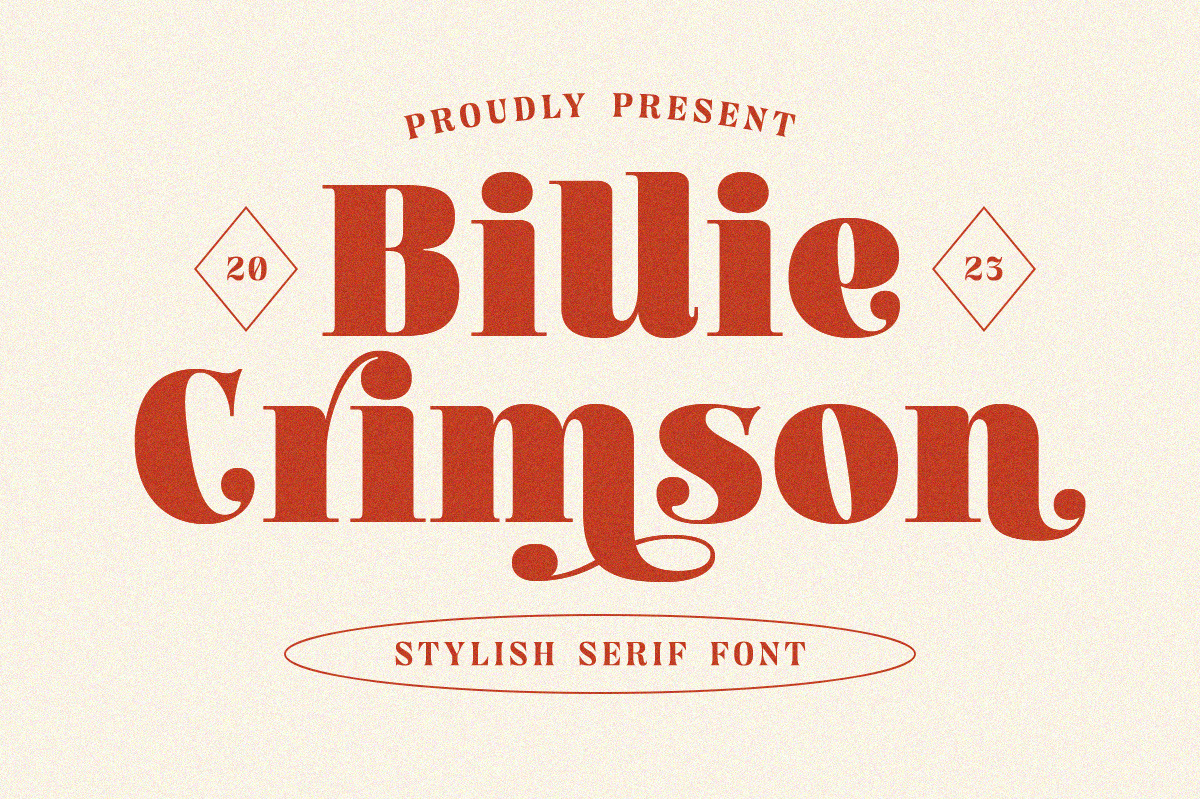
Billie Crimson - Stylish Serif Font
Billie Crimson is a stylish serif font that exudes class and timelessness. Its sophisticated & classic looks make .The font comes with several alternate characters that add even more versatility and uniqueness to your designs.